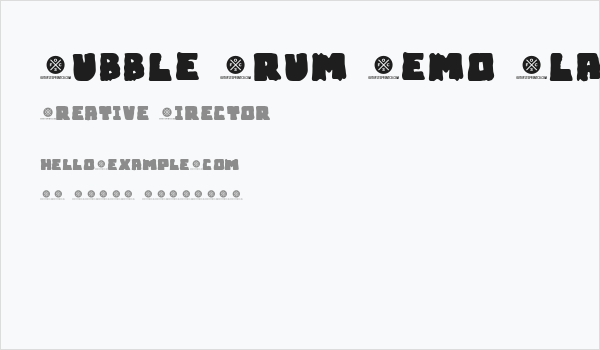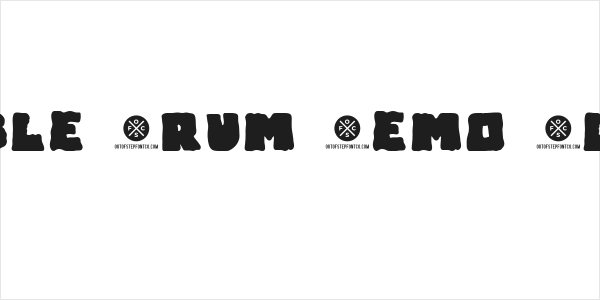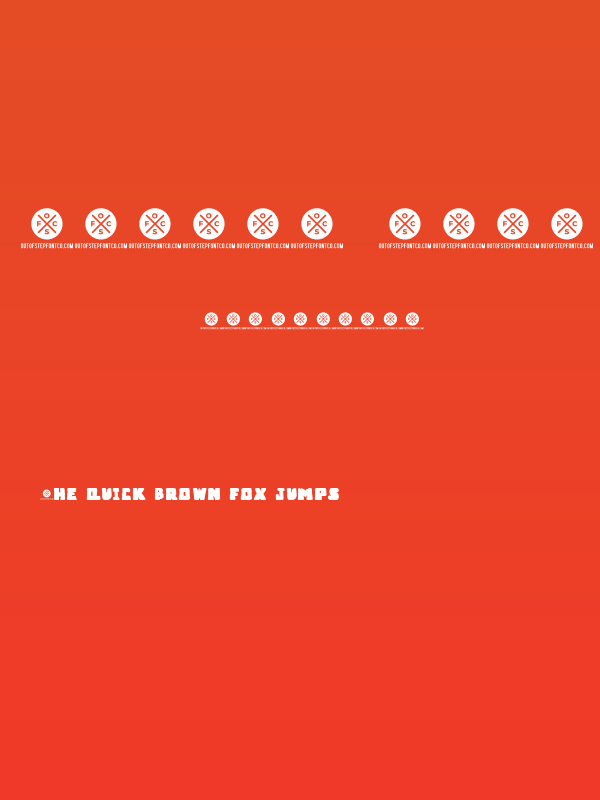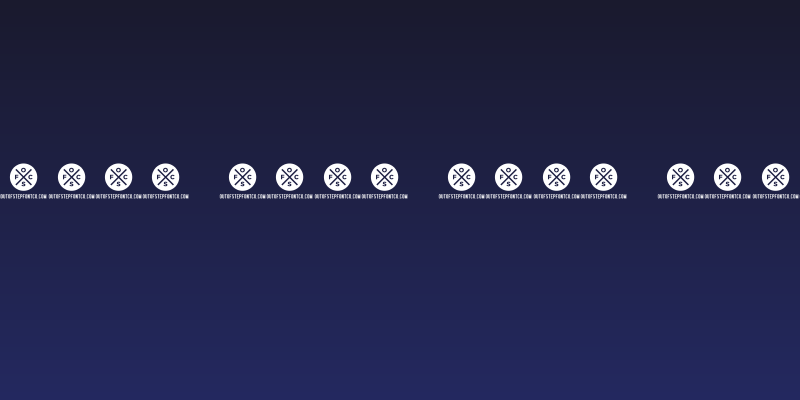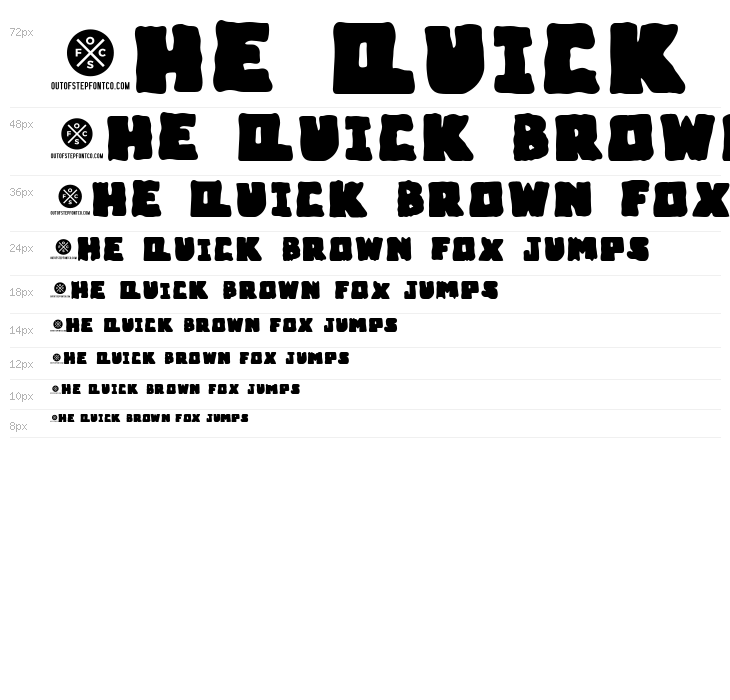
Bubble Frum Demo Black Font
Bubble Frum Demo Black Description
This font features a bold and playful design with a distinctly bubbly appearance. The characters are thick and rounded, giving them a soft and approachable look. The uppercase letters are uniform in height and width, creating a cohesive and balanced appearance. The style is reminiscent of playful, cartoon-like lettering, making it ideal for projects that require a fun and informal touch. The font's boldness ensures it stands out, while the rounded edges add a friendly and inviting feel. This font is perfect for creative projects that aim to capture attention with a whimsical and lighthearted vibe.
| Proposed Projects | Ideal for children's book covers, playful branding, party invitations, and fun posters. |